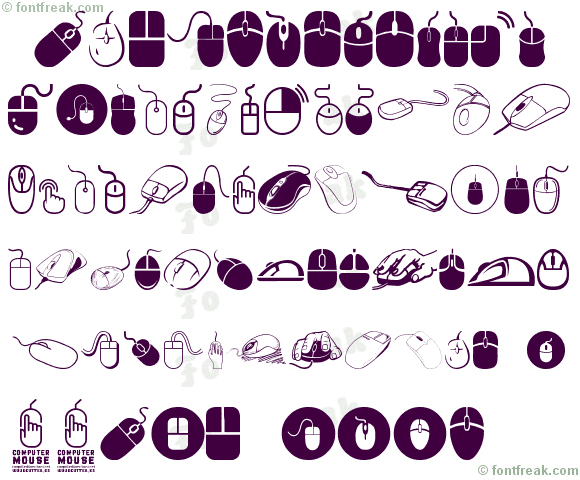
computer mouse
The "computer mouse" font by Woodcutter Manero is a unique decorative typeface that captures the essence of technology and playfulness. This font is characterized by its distinctive design elements that resemble various computer mouse shapes, making it a perfect choice for modern, tech-themed projects. With a moderate stroke weight and minimal contrast, the font is easy to read while still retaining an artistic flair. The spacing between the characters is well-balanced, allowing for clear communication in any context.
This font’s playful nature lends itself to a variety of creative applications. It's ideal for tech-focused websites, digital product advertisements, or even as a quirky element in graphic designs for social media posts. Additionally, it can be effectively used in video game branding, online tutorials, and educational materials aimed at younger audiences. Small business owners looking to infuse a tech-savvy vibe into their branding will find this font particularly appealing.
The target audience for the "computer mouse" font includes graphic designers, content creators, and tech entrepreneurs. Its unique aesthetic allows these professionals to express creativity while maintaining a contemporary look.
What sets the "computer mouse" font apart is its ability to blend functionality with a sense of fun. Its freeware license makes it accessible for anyone looking to incorporate a fresh, tech-oriented style into their projects. Whether you’re designing a logo, crafting a digital flyer, or enhancing a web page, the computer mouse font free download offers a distinctive solution that stands out in a crowded market. With its innovative approach to typography, this font invites users to explore the intersection of creativity and technology.